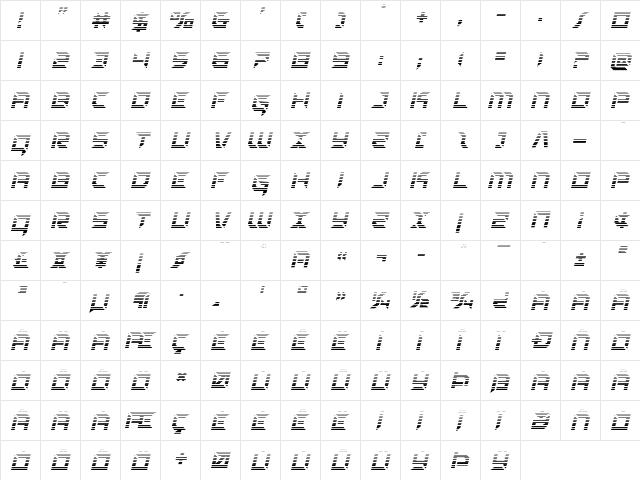
Zero Prime Gradient Italic Italic
Design Context for Zero Prime Gradient Italic Typeface
Zero Prime Gradient Italic is a composed and adaptable typeface that performs quietly and consistently across a wide range of design contexts. Its italic angle brings a sense of urgency and motion to the letterforms.